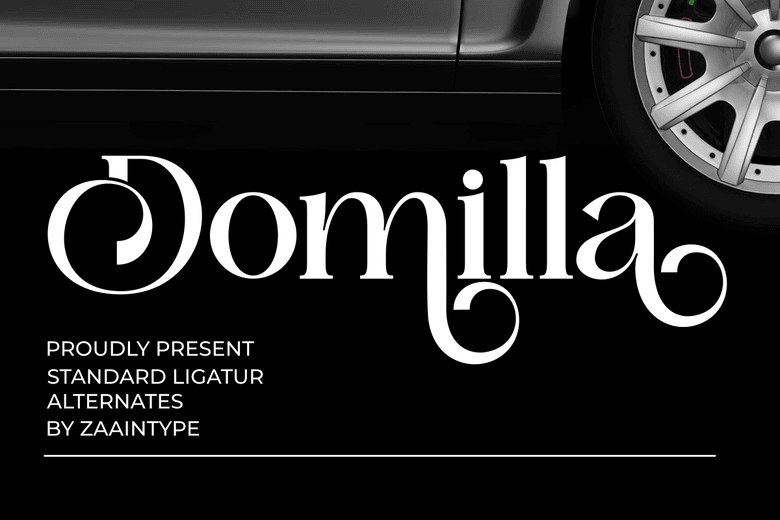
Domilla Font
Domilla is an exclusive, top-tier serif font crafted with the keynotes of opulence, sophistication, and expertness in mind. Offering the allure of Regular and Oblique styles, Domilla effortlessly elevates the aesthetic appeal, crafting an impressive visual persona for any design endeavor.
Balanced and versatile, this distinctive font curates an experience of richness and credibility, matching the highest standards in professional design. Domilla brings visual harmony and dignity to the forefront, making it a uniquely enchanting addition to any design project.
Domilla Serif Font